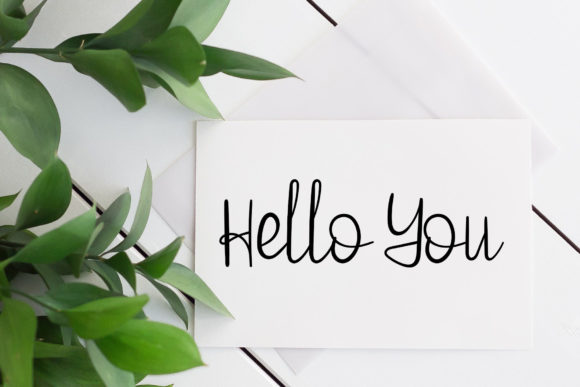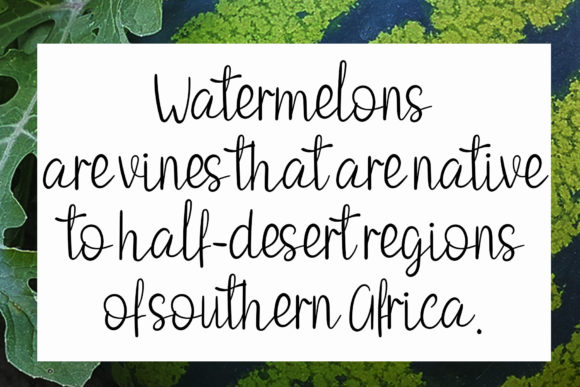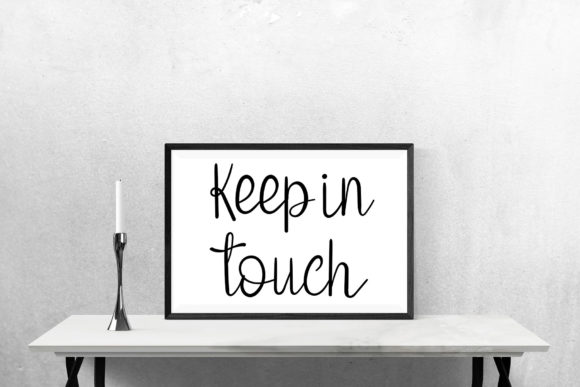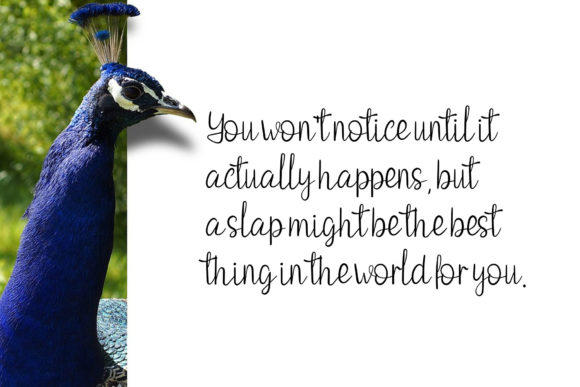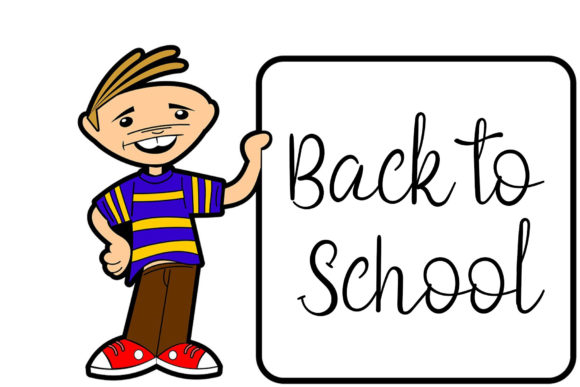
Unleashing Elegance with Every Cup: The Story Behind Butter Coffee Font
There’s nothing quite like the feeling of sipping a rich, creamy cup of coffee on a lazy Sunday morning, surrounded by the warmth and comfort of your own creative space. As you take a sip, the aroma fills the air, and your mind begins to wander – ideas start flowing, and inspiration strikes. It’s in these moments that we find our creative spark, and for many designers, the right font can be the perfect catalyst to bring their vision to life.
Enter Butter Coffee Font, a chic and refined script font that embodies the essence of sophistication and elegance. With its stylish alternates and ligatures, this font is the perfect match for any project that demands a touch of refinement and class. Whether you’re designing a luxury brand, a wedding invitation, or a high-end magazine, Butter Coffee Font is sure to elevate your work to new heights.
Butter Coffee Font Key Features
- Unique Characteristics: Unique blend of modern and vintage elements, with a warm and inviting tone
Butter Coffee Font Review
When I first saw the Butter Coffee Font, I was intrigued by its unique combination of clean lines and friendly feel. ✨ The font is perfect for coffee shops, food blogs, or any brand that wants to evoke a sense of warmth and approachability. The font’s playful feel is sure to grab the attention of potential customers and make them feel at ease.
The Butter Coffee Font has a number of great features, including:
- Easy readability: The font is clear and simple, making it easy to read, even at small sizes.
- High customization options: The font comes with a range of weights, styles, and sizes, allowing you to customize it to fit your brand’s needs.
- Great for digital use: The font looks great on screens, making it perfect for websites, social media, and mobile apps.
- Limited expressiveness: While the font is great for everyday use, it may not be the best choice for more formal or professional applications.
- May not be suitable for all languages: The font may not have the same level of legibility for languages that use non-Latin scripts.
- Not ideal for small text: While the font is easy to read, it may not be the best choice for small text, such as captions or footnotes.
Overall, I think the Butter Coffee Font is a great choice for many applications, but it’s not perfect. With some careful consideration and customization, it can be a valuable addition to your design toolkit.
The Butter Coffee Font is perfect for use in coffee shop logos, branding materials, and social media graphics. It’s also great for use in food and beverage packaging design, as well as in advertising and marketing materials.
Lato is a modern sans-serif font that works well for digital interfaces and print materials. It is highly legible and versatile, making it suitable for a wide range of applications, from headlines to body text. Compared to Butter Coffee Font, Lato has a cleaner and more minimalist design, which can be beneficial for designers who want to create a more professional and sophisticated look.
Montserrat is a geometric sans-serif font that is designed for urban environments and digital interfaces. It has a strong, modern feel that works well for headlines and titles. Compared to Butter Coffee Font, Montserrat has a more angular and geometric design, which can be beneficial for designers who want to create a more edgy and modern look.
Open Sans is a clean and modern sans-serif font that is highly legible and versatile. It works well for digital interfaces, print materials, and even signage. Compared to Butter Coffee Font, Open Sans has a more neutral and approachable design, which can be beneficial for designers who want to create a more friendly and approachable look.
The recommended line spacing for the Butter Coffee Font is 1.2-1.5 times the font size. This line spacing provides sufficient breathing room between lines of text and ensures that the font remains legible, even at larger sizes.
Is the Butter Coffee Font optimized for digital use?
Yes, the Butter Coffee Font is optimized for digital use and is designed to perform well on a variety of devices and screen sizes. The font is built with clear, legible characters and is designed to render smoothly on both desktop and mobile devices.